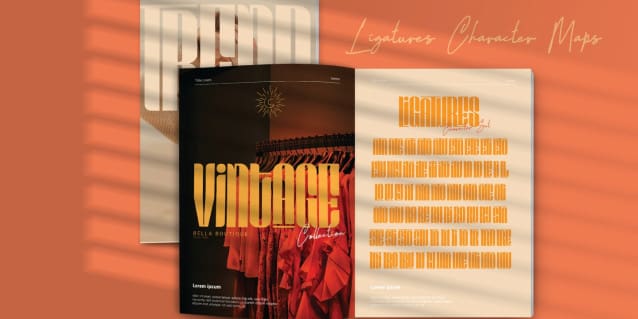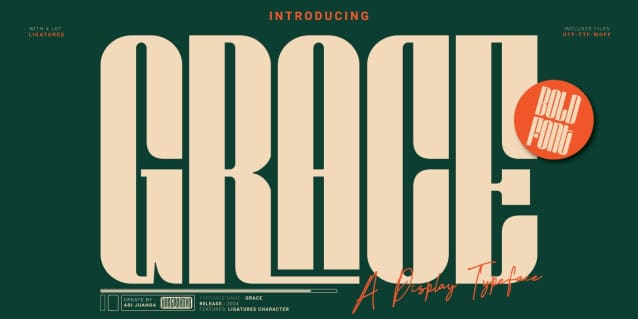
Grace Condensed Font
Grace Condensed Font is an elegant Bold Condensed font display with a classic touch, with lots of ligatures and also Supports Multi linguage (Latin Western Europe),Numbers and Punctuation suitable for various design applications!,